35+ Quotes Ramadhan for Reflection and Encouragement
Ramadhan, a blessed season, sends a divine invitation to spiritual renewal, discipline, and profound reflection. Gear yourself with determined preparation and find motivation through encouraging quotes for Ramadhan we’ve generated for you.
Warm Wishes for Ramadhan Quotes
- “Let the Adhan be your alarm clock, and sincerity be the fuel for your deeds this month.”
- “Your Ramadhan goal must go beyond perfecting your fast. It’s also to let the fast perfect you.”
- “Worship is a muscle; Ramadhan is the intensive training camp. Push your limits.”
- “You quench your thirst at iftar. Let your heart quench its longing for its Rabb blessing at every prayer.”
- “Your best devotion is the one you carry after Ramadhan ends.”
- “This month, make your tongue fast from gossip before your body fasts from water.”
- “Let hunger remind you of your soul’s real nourishment: remembrance of God.”
- “Rise for Suhoor not merely out of hunger, but out of a deep love for the extra minutes with the Divine.”
- “The Qur’an is the guide for your life journey; read it like a personal manual.”
- “May the last ten nights of Ramadhan find you not just surviving, but striving and finishing strong.”
Fasting Ramadhan Quotes
- “Fasting is the gentle reminder that what you crave is temporary, but what your soul needs is eternal.”
- “We fast not to feel the poverty of the poor, but to feel the reliance of the servant and nurture his piety to his Rabb.”
- “In the stillness of a parched throat, we find clarity that the noise of the world obscures.”
- “With fasting, your body disciplines, and your spirit feasts.”
- “Fasting teaches us patience, that the reward for restraint is always sweeter than the immediate indulgence.”
- “Ramadhan teaches you to own your desires, not be owned by them.”
- “The best fasting is a change in character, not a calendar date.”
- “A successful fast is the one that breaks the ego, beyond hunger and thirst.”
- “The sincere emptiness in your stomach during Ramadhan fast is a vacuum for the blessing of Allah to fill.”
- “Fasting is the soul’s way of hitting the ‘reset’ button on a year of spiritual drift.”
Happy Feast Day Ramadhan Quotes
- “Ramadhan Mubarak! May the peace we seek in our fasts settle gently over your home and family.”
- “Wishing you a Ramadhan in sustained barakah, blessings, and devotion.”
- “During this Ramadhan, I pray that your family table be filled with warmth, your prayers with sincerity, and your year with endless goodness.”
- “To my friends, may our shared discipline this month strengthen the bonds of our brotherhood/sisterhood in faith.”
- “Ramadhan Mubarak to my colleagues. May this time of reflection bring clarity, patience, and balance to your busy world.”
- “May your fasts be light, your Iftar joyful, and your journey of faith deeply rewarding.”
- “Sending wishes for a spiritually productive Ramadhan. May your quiet moments of worship yield the biggest rewards.”
- “May the light of the crescent moon guide you to a month of forgiveness and spiritual elevation. Happy Ramadhan.”
- “Allah blesses you and your family with safety, health, and a heart full of gratitude this sacred month of Ramadhan.”
- “Wishing you a blessed and transformative Ramadhan, where we all will emerge as a better version of ourselves.”
Quotes About Ramadhan Mubarak
- “Ramadhan Mubarak invites you to elevate your purpose. Let this month be your meaningful spiritual turning point.”
- “Ramadhan is a reminder that the best time for good change is now. Take the opportunity that comes to rewrite your legacy with every good deed.”
- “In this Ramadhan, endure your fast, embrace the challenge with sincere hope for His blessing.”
- “The blessing (Barakah) of Ramadhan Mubarak is directly proportional to the sincerity of your intention. Set your focus high.”
- “Ramadhan Mubarak! It is a spiritual investment. Invest your hours in devotion and reap rewards that transcend this worldly life.”
- “Ramadhan is the golden time to manifest your capability of greater self-mastery than you realize, and fasting is the discipline you build.”
- “Let the greeting of Ramadhan Mubarak be a call to action: read, reflect, repent, and reconcile. This is the month of accelerated growth.”
- “The holy Ramadhan serves as an annual audit for the soul. Motivate yourself to clear the spiritual debts and maximize your good deeds.”
Personalized Fonts for Quotes of Ramadhan
Retain the underlying spirits behind your selected quotes with these matching-vibe fonts.
1. Amal Baik
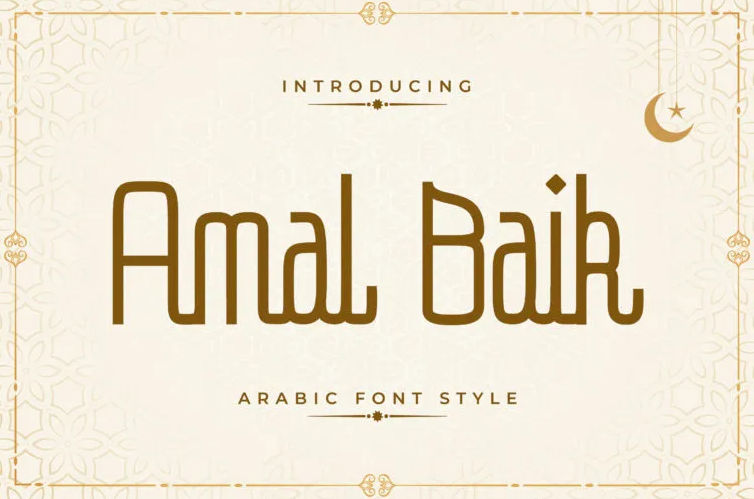
Exquisite font choice for headline and display designs.
2. Irsyad
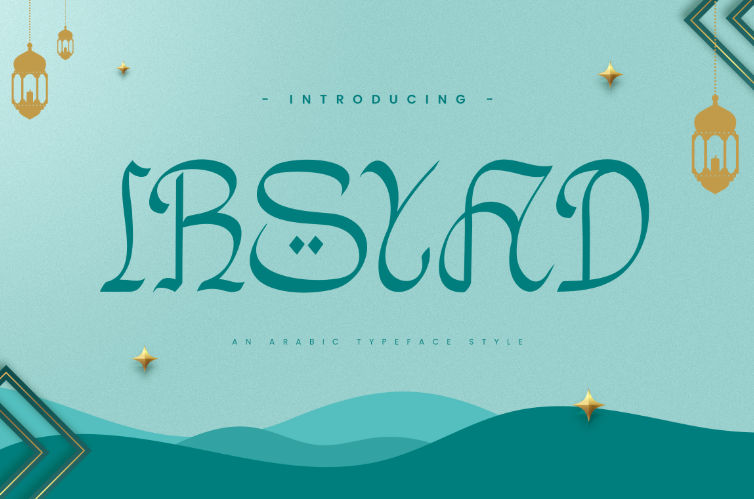
Irsyad perfects text with courageous spirit through its subtle flowy curves and strokes.
3. Lajamillah
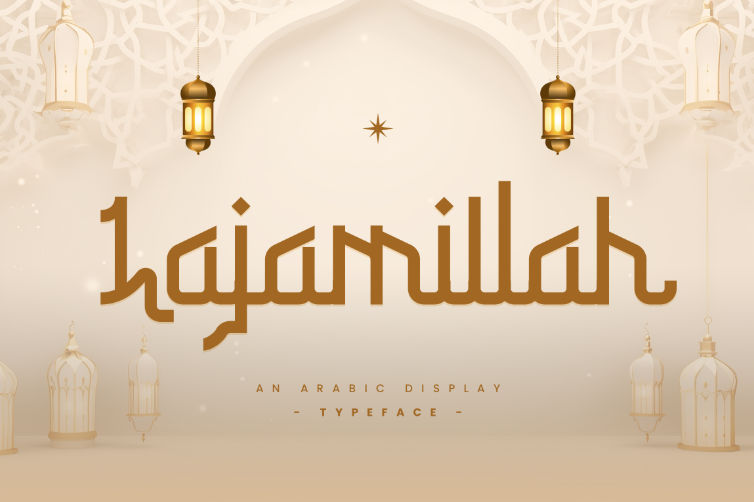
Hooking appearance with complex geometric lettershape, decently readable.
Also Read: 50 Best Happy Birthday Quotes to Make Anyone Feel Special
4. Malleknas
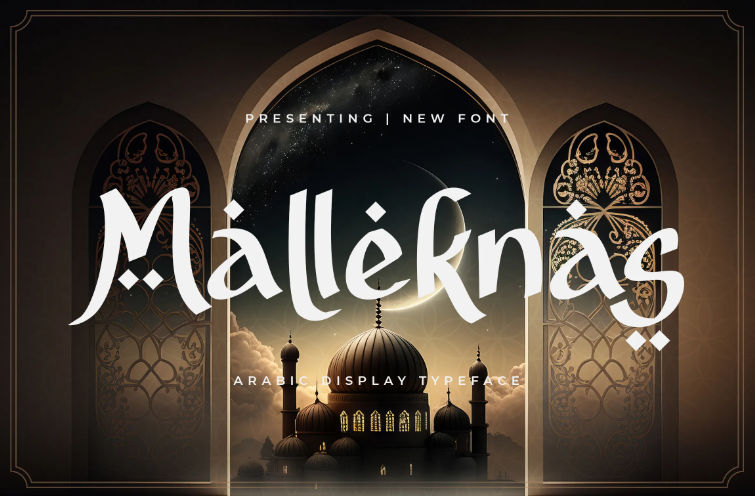
Flowy cursive styled, perfect to make your design feel friendly.
5. Labaniy
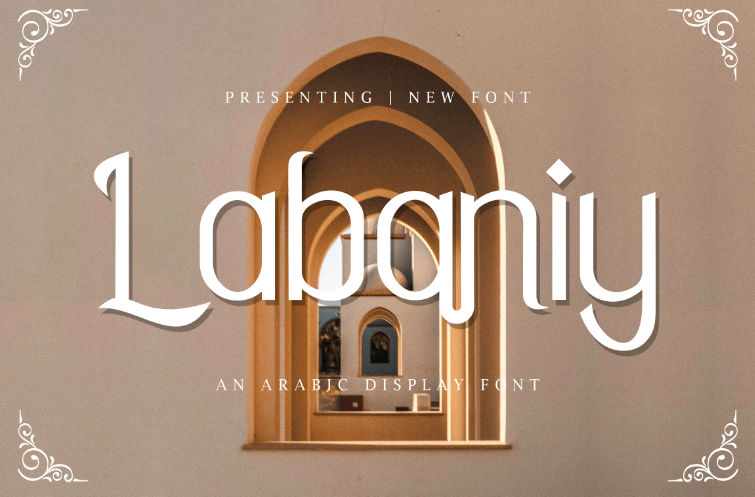
Highly readable, less decorated, suitable for any design theme.
6. Nur Ramadhan
The most typical vibe of the Arabic font style, Nur Ramadhan looks glimmering.
7. Rabiul
Riqa calligraphic style in Rabiul will make your quote prints feel more handwriting-like.
Infuse Your Quotes Ramadhan with Stunning Visuals